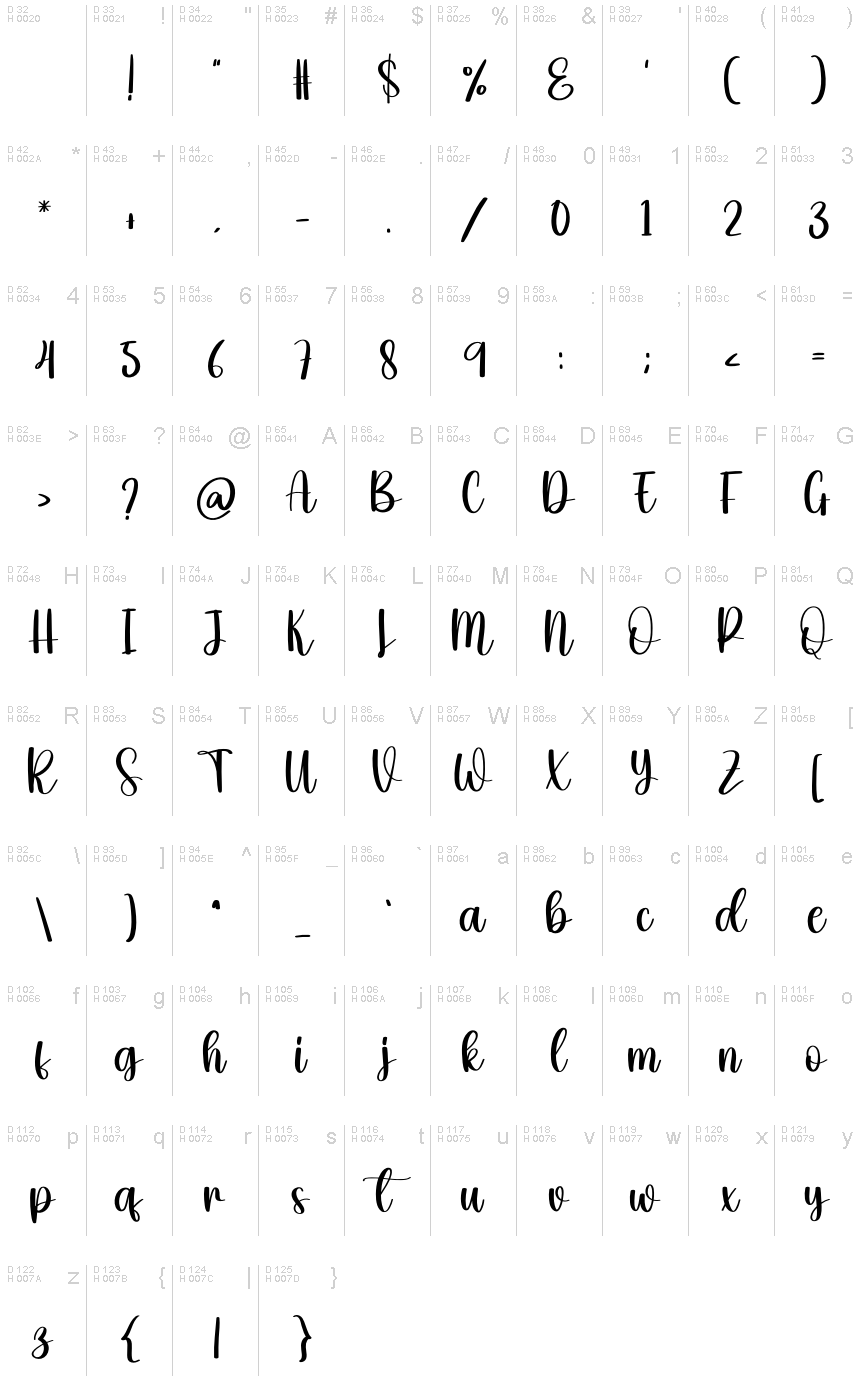
Fishing
Fishing, the newest creation from scratchones, is a stunning handwritten font that will elevate your design projects to new heights. Its condensed width adds an extra touch of elegance to any project - from wedding invitations and business cards to social media graphics and logo designs. The semi-bold font style gives Fishing a bold and confident look while still maintaining its handwritten charm. This versatile font is perfect for any creative endeavor that requires a touch of personality and flair. So cast your line and reel in Fishing for your next project!
the latest style letters are perfect for wall displays, wedding invitations, social media post logos,
advertisements, product packaging, product designs, labels, photography, watermarks, invitations, stationery,
and any project that requires taste handwriting.